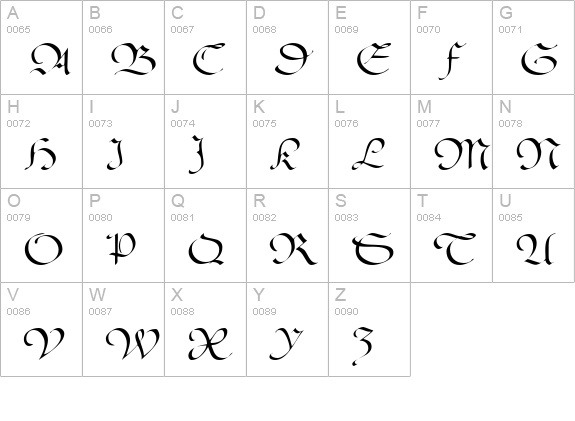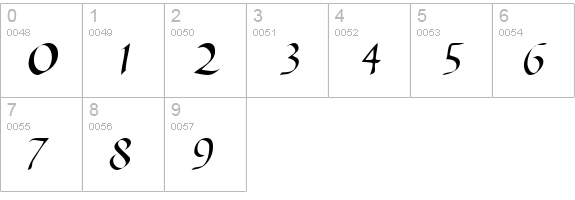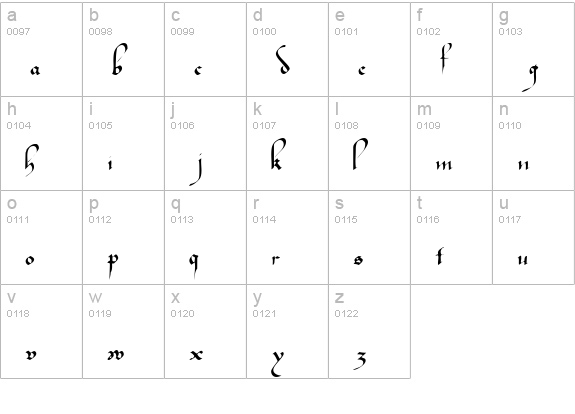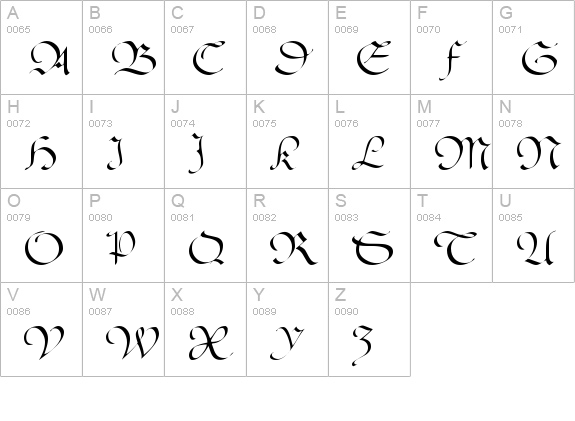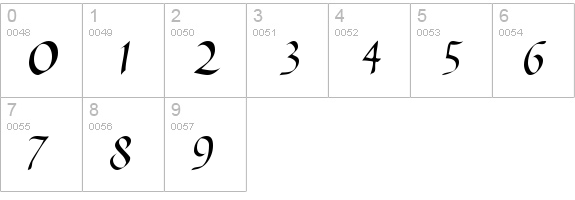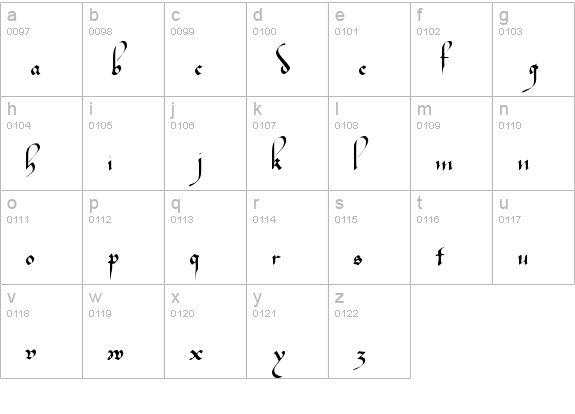
BucheSSK Font Details
BucheSSK is a stylish and modern font that exudes elegance and sophistication. Its sleek lines and sharp edges make it perfect for a wide range of design projects, from logos to branding to web design. The unique design of BucheSSK sets it apart from other fonts, making it a standout choice for those looking to make a statement. What's even better is that BucheSSK is available for free download at FontsMarket.com. This means you can easily add this stunning font to your collection without breaking the bank. Don't miss out on the opportunity to enhance your designs with the beauty and versatility of BucheSSK. Download it today and let your creativity soar!